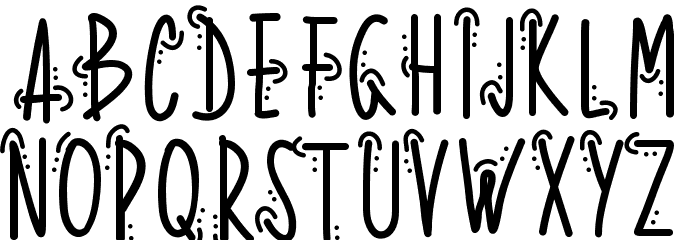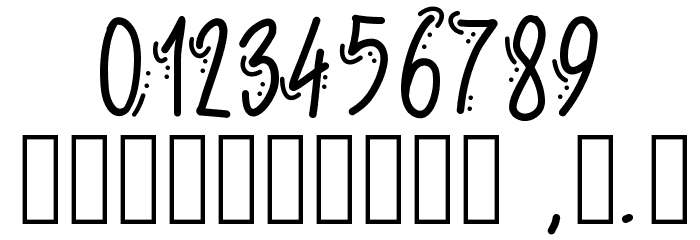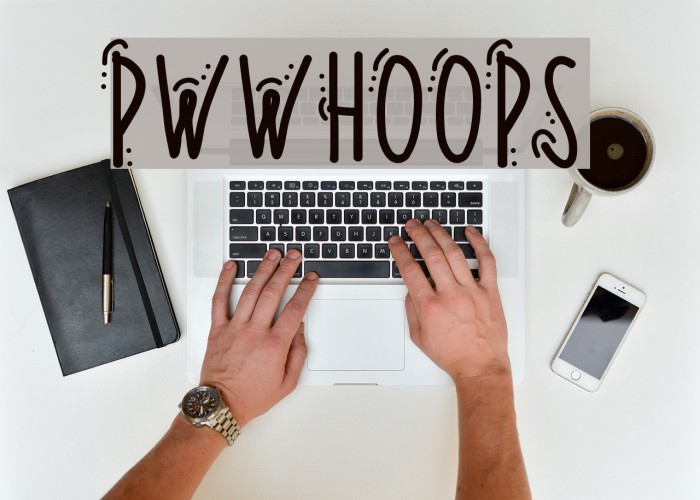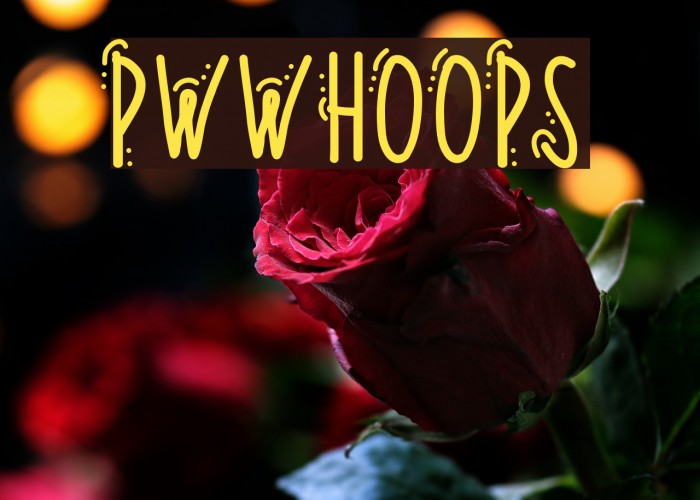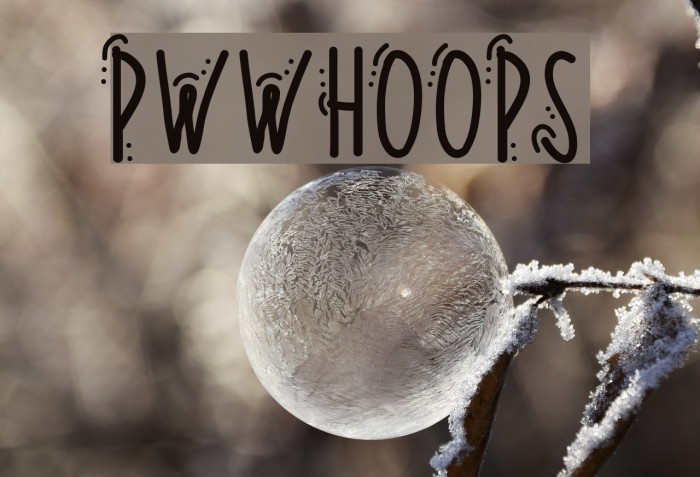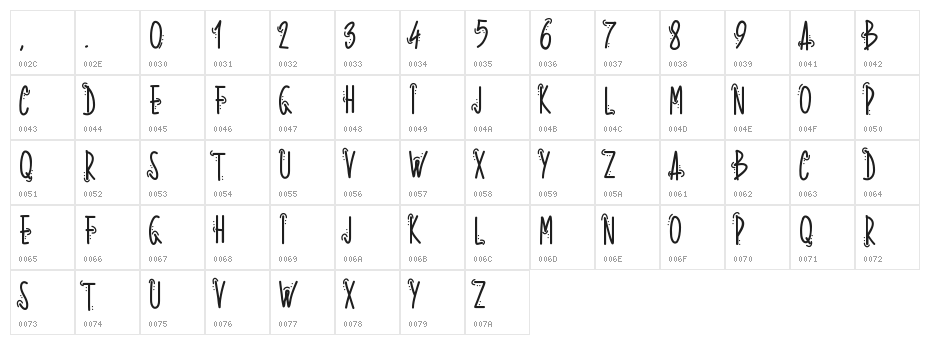
PWWhoops Font
This playful and whimsical font features a unique decorative style with dots and curls embellishing each character. The uppercase and lowercase letters maintain a consistent height, creating a uniform appearance. The numbers are equally stylized, with a quirky flair that adds personality. The font's design is reminiscent of hand-drawn lettering, making it ideal for projects that require a fun and informal touch. Its distinctiveness lies in the creative use of decorative elements that enhance the overall aesthetic without compromising readability.
A playful, decorative font with whimsical dots and curls.
- Proposed Projects: Ideal for children's books, greeting cards, playful branding, and creative posters.
- Overall Style: Whimsical, Playful